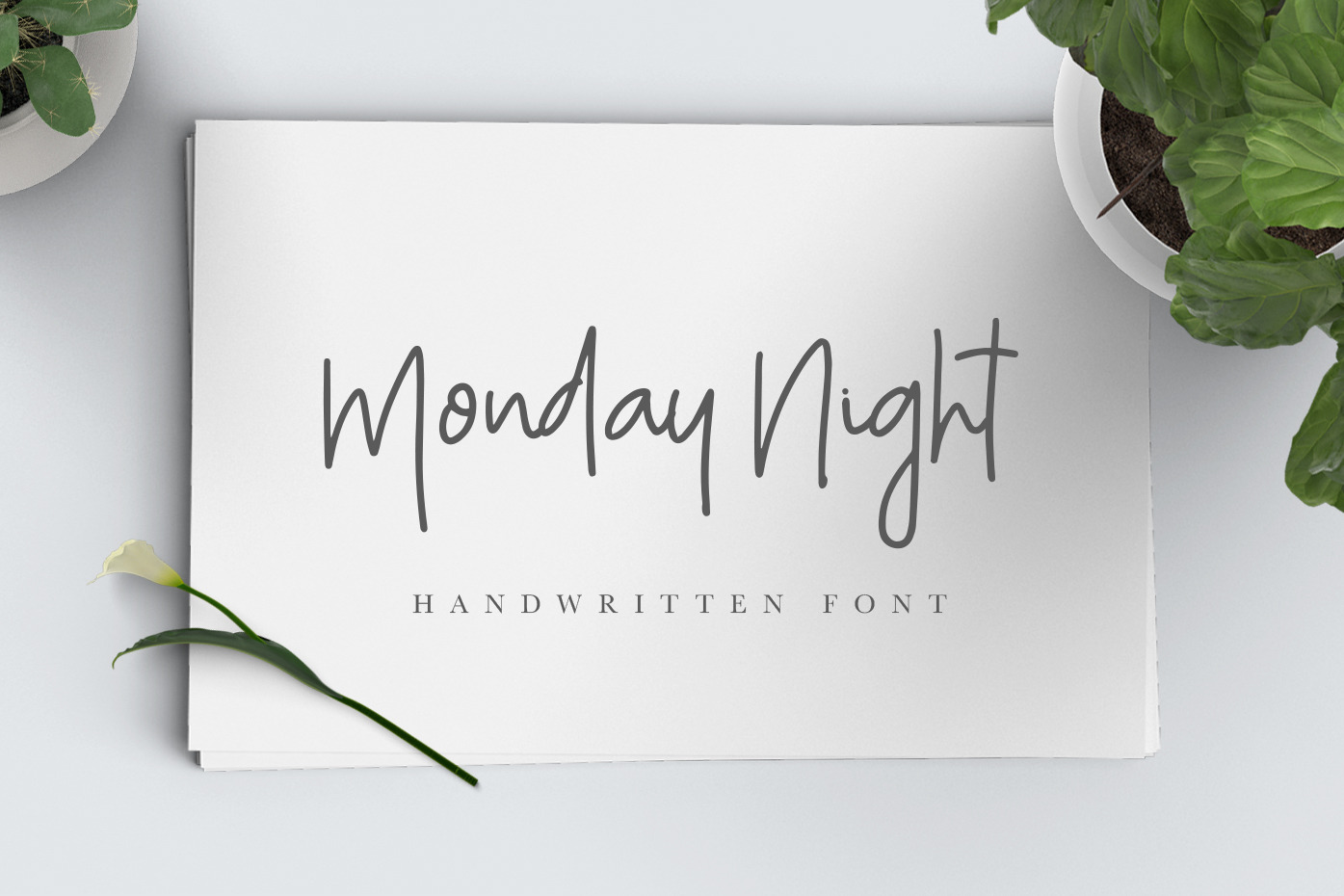
Monday Night Font
Monday Night is beatiful monoline script font.
With this font you can your own logo branding, homeware designs, product packaging, wedding invitation or simply as a stylish text overlay to any background image.